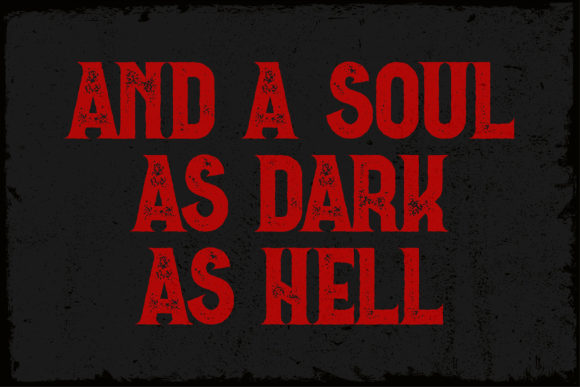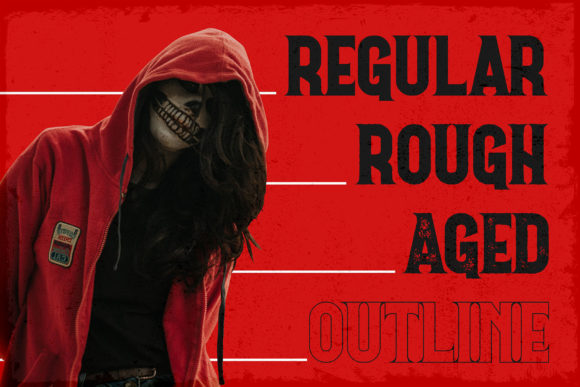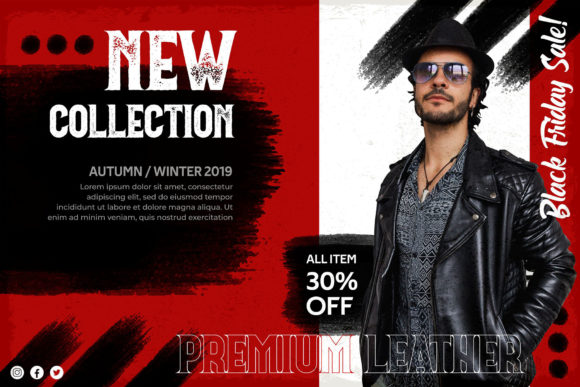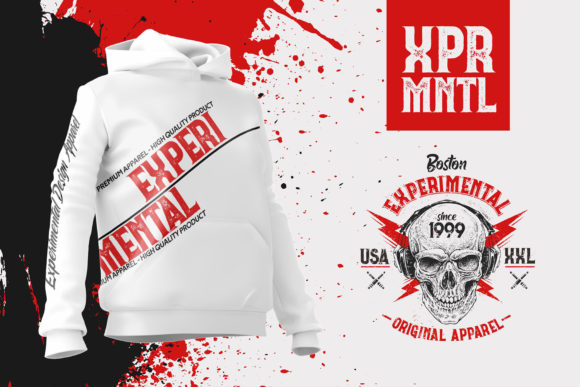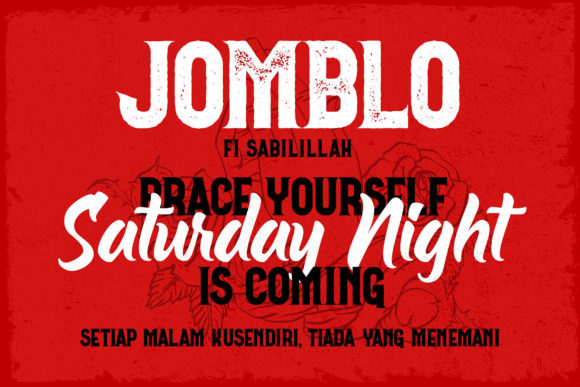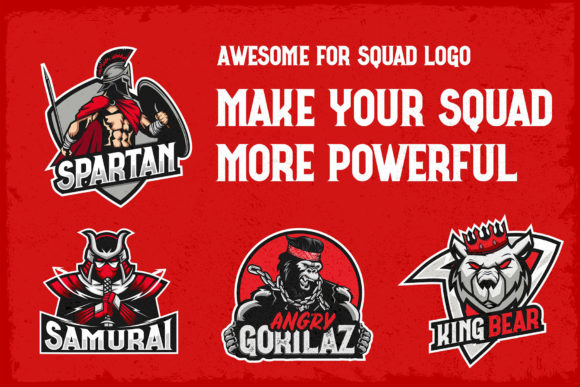
Introduction to Darkest Saturday Duo Font
This stunning and serious Font Duo is inspired by a blend of vintage style with a touch of rawness.
Key Features of Darkest Saturday Duo Font